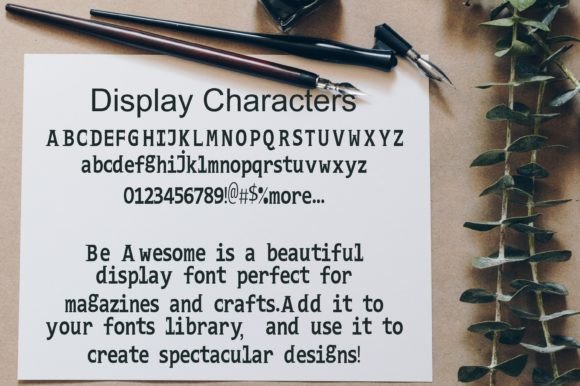
Unlock Your Creative Potential with Be Awesome Font
Have you ever been in the middle of a creative project, and suddenly, the words just won’t flow? You stare at the blank page, trying to muster up the inspiration to bring your vision to life. We’ve all been there, but what if we told you that the right font could be the missing piece of the puzzle? Enter Be Awesome Font, a stunning display font designed specifically for magazines and crafts.
This beautiful font is a game-changer for designers looking to add a touch of elegance and sophistication to their projects. With its unique style and versatility, Be Awesome Font is the perfect addition to any font library. Whether you’re creating a magazine layout, designing a craft project, or simply looking to add some flair to your social media posts, Be Awesome Font is sure to elevate your designs and make them truly stand out.
Key Features of Be Awesome Font
- Font Family: Be Awesome Font is available in multiple font families, including Regular, Bold, Italic, and Bold Italic.
- Unique Characteristics: Be Awesome Font features a unique blend of modern and vintage elements, with a distinctive flair that sets it apart from other sans-serif fonts.
Be Awesome Font Review
Overall, I’d say Be Awesome Font is a solid choice for designers looking to add some personality to their projects. Here’s what I like about it:
- ✨ Unique character set: The font has a quirky, hand-drawn feel that sets it apart from more generic sans-serif fonts.
- ✨ Versatility: Be Awesome Font works well in a variety of contexts, from headings to body text, and even for logotypes.
- ⚠️ Limited language support: Be Awesome Font only includes characters for the Latin alphabet, which may be a problem for designers working with non-Latin scripts.
- ⚠️ Not ideal for small text: The font’s unique character set can make small text difficult to read, especially at low resolutions.
Overall, I’d recommend Be Awesome Font to designers who want to add a bit of whimsy to their projects. While it may not be the best choice for every situation, it’s a great option for those looking for a unique and playful font.
Be Awesome Font is perfect for creating eye-catching headlines and titles. Use it to add a touch of sophistication and elegance to your designs.
- Creating a bold and eye-catching logo.
- Designing a website or app title.
- Adding a touch of style to a social media post.
Alternatives to “Be Awesome Font” for Designers
Pacifico is a beautiful, elegant script font that works well for headings and titles. It’s perfect for designs that require a touch of sophistication and class. When to use: Use Pacifico for headings, titles, and any design where you want to add a sense of luxury and elegance. It’s a great alternative to Be Awesome Font for designs that need a more refined and sophisticated look.
Comparison: While Be Awesome Font is bold and playful, Pacifico is more elegant and refined. Be Awesome Font is better suited for modern and edgy designs, while Pacifico is perfect for more traditional and classic designs.
Great Vibes is a modern script font that’s perfect for designs that need a touch of fun and playfulness. It’s great for headings, titles, and any design where you want to add a sense of energy and excitement. When to use: Use Great Vibes for designs that need a modern and trendy feel. It’s a great alternative to Be Awesome Font for designs that require a more relaxed and casual look.
Comparison: While Be Awesome Font is bold and attention-grabbing, Great Vibes is more relaxed and casual. Be Awesome Font is better suited for designs that need to stand out, while Great Vibes is perfect for designs that need to feel approachable and friendly.